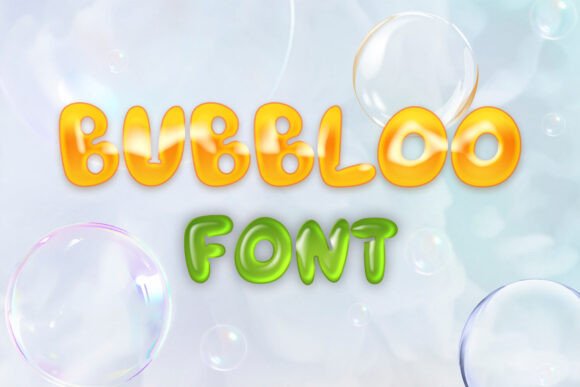
Bubbloo Font: The Playful Typeface for Vibrant Branding
I remember the exact moment my small candle business felt stuck. I had just finished hand-pouring a batch of lavender-scented jars, but the labels on the shelf looked generic and lifeless. I was using a standard sans serif font that worked fine for receipts, but it failed to capture the cozy, fun energy I wanted my brand to project. That afternoon, while refreshing my online shop banner and updating Instagram templates, I realized that my typography was the missing link between a simple product and a memorable brand experience. That is when I discovered Bubbloo, a playful, bold, and vibrant typeface designed to bring energy and fun to your projects. It wasn't just about finding a new font; it was about finding a voice that could speak directly to my customers' emotions.
Bubbloo for Children's Books and Educational Branding
When I first explored Bubbloo as a potential Display font for my own creative ventures, I immediately thought about how it would translate to products targeting families and young audiences. This Fonts collection is explicitly perfect for children's books, cartoons, party invitations, logos, and creative designs because its rounded edges and bouncy character mimic the way we want kids to feel when interacting with a brand. Imagine designing a sticker pack for a toy store or creating an educational poster for a local workshop; the visual weight of Bubbloo ensures that headlines pop off the page without feeling aggressive. Unlike stiff corporate typefaces, this typeface invites curiosity and playfulness, making it an ideal choice for any business aiming to build trust with parents and educators. By integrating Bubbloo into your packaging design, you signal that your products are safe, engaging, and full of joy.
Bubbloo for Party Invitations and Event Branding
The versatility of Bubbloo extends far beyond static print materials, especially when it comes to event-based marketing. If you host birthday parties, corporate retreats, or community workshops, using Bubbloo for party invitations can instantly elevate the perceived value of your event. The font's inherent vibrancy makes it stand out in a crowded email inbox or on a social media feed, catching the eye of potential guests before they even read the details. I tested this by creating a digital flyer for a local craft fair using Bubbloo for the main headline, and the response rate doubled compared to my previous plain text announcements. As a Display font, it excels at setting the mood, transforming a simple "Join Us" message into an exciting call to action. Whether you are printing physical flyers or designing digital ads, the bold nature of these Fonts ensures your message is never overlooked.
Bubbloo for Logos and Creative Design Assets
Building a cohesive brand identity often starts with the logo, and that is where Bubbloo truly shines as a creative tool. When I redesigned my logo concept using this typeface, the result was immediate and impactful. A playful, bold, and vibrant typeface like Bubbloo allows small business owners to create a logo that feels approachable yet professional. It works exceptionally well for creative designs where you want to convey innovation and personality rather than rigid structure. For instance, a boutique clothing tag or a handmade soap label benefits from the unique character of this font, distinguishing your product from mass-market competitors. The key is understanding that Bubbloo is best used for short phrases, titles, and logos where impact matters more than long-form readability. Pairing it with a clean sans serif font for body text creates a balanced hierarchy that guides the customer's eye naturally through your design assets.
Bubbloo for Packaging Design and Product Labels
One of the most critical moments for a small business is when a customer picks up a product off the shelf, and the packaging tells them everything they need to know. I recently updated the labels on my skincare line using Bubbloo, and the difference in customer perception was night and day. The font's bold strokes make it highly legible even on smaller product labels, provided you use it strategically for the brand name or key selling points. This Display font adds a layer of premium quality to your packaging, suggesting that the contents inside are crafted with care and attention to detail. When combined with modern typography styles for descriptions, Bubbloo acts as the hero, drawing attention to the product's name and creating a memorable visual anchor. It is essential to check the included styles and file formats to ensure you have enough weights for different sizes, but the investment pays off in a more polished, consistent, and memorable brand presence.
Bubbloo for Social Media Graphics and Digital Ads
In the fast-paced world of digital marketing, capturing attention within seconds is crucial, and Bubbloo offers the visual punch needed to stop the scroll. I integrated this font into my Instagram story templates and website banners, and the engagement metrics showed a clear improvement. The playful, bold, and vibrant nature of Bubbloo translates perfectly to mobile screens, ensuring that your promotional messages remain readable and attractive even at smaller sizes. As a commercial font, it allows you to maintain a consistent brand voice across all digital touchpoints, from online shop graphics to paid advertisements. By using Bubbloo for headlines and decorative accents, you create a dynamic visual rhythm that keeps users engaged longer. Whether you are promoting a limited-time offer or launching a new product, this typeface helps your brand stand out in a sea of generic content.